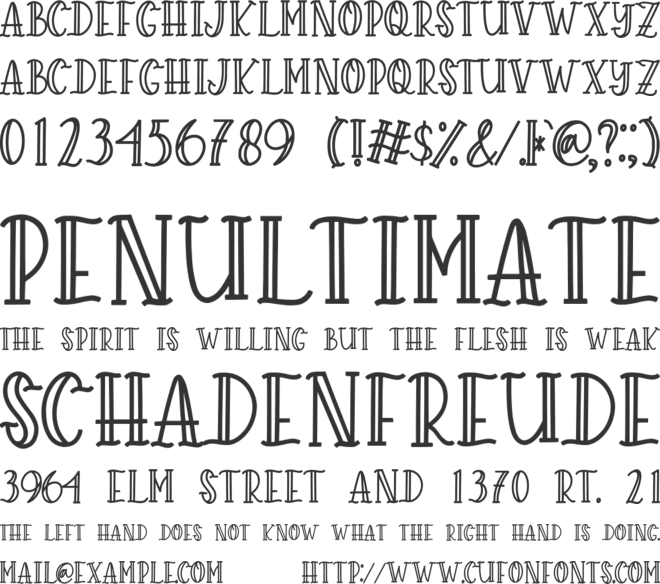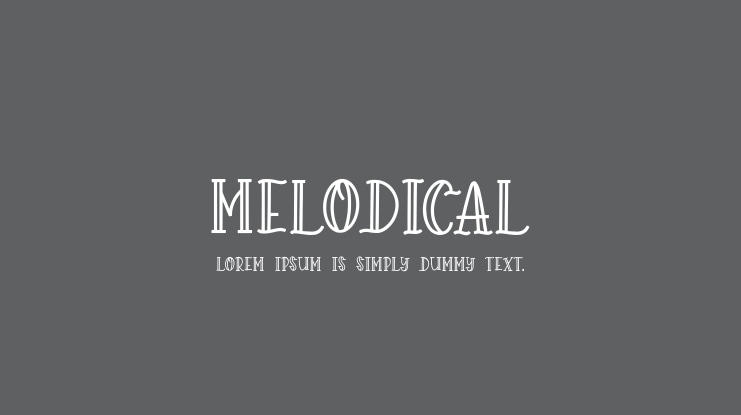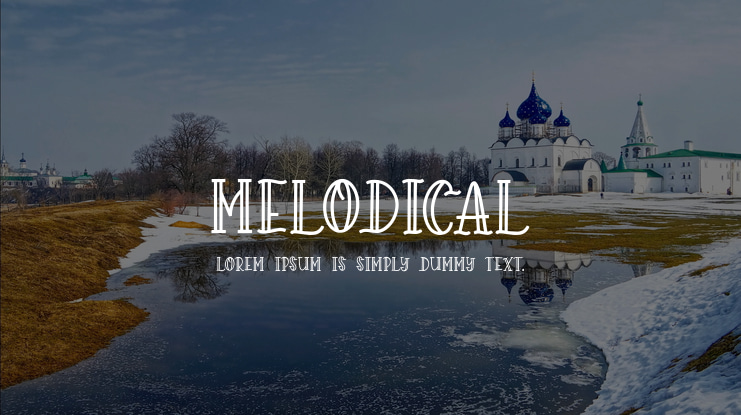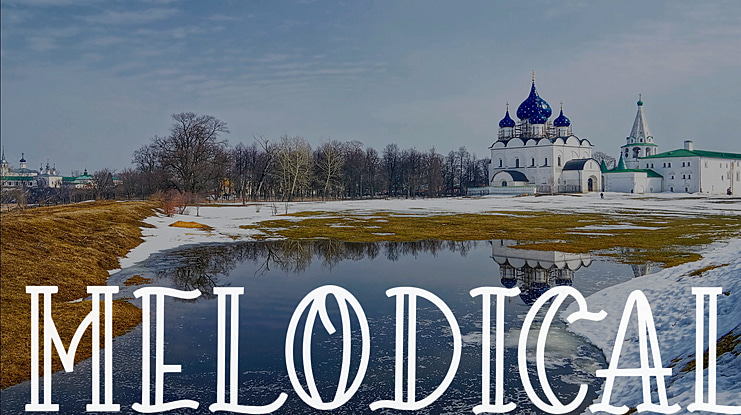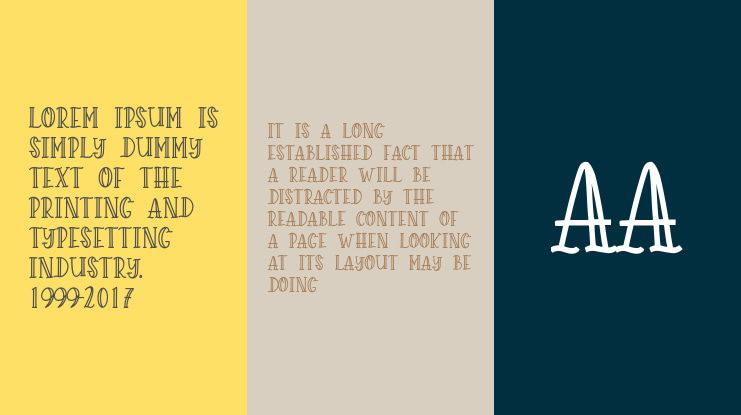
Melodical Font Family
Proudly Present, Melodical
Melodical is a Tattoo Typeface with Two Style
Melodical is perfect for product packaging, branding project, megazine, social media, wedding, or just used to express words above the background.